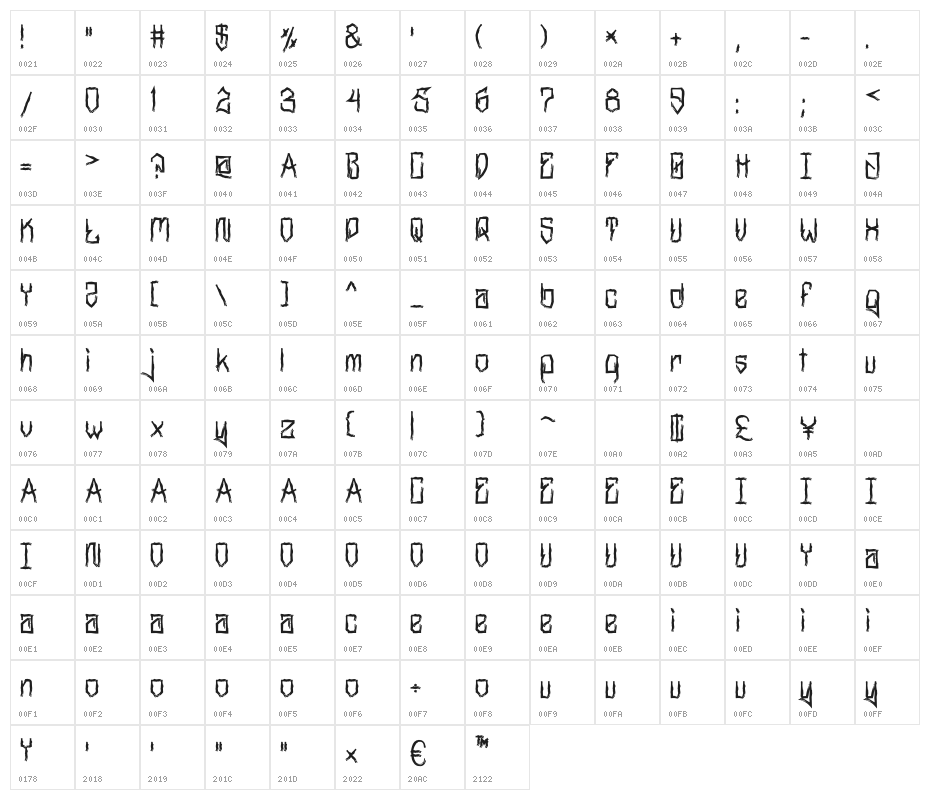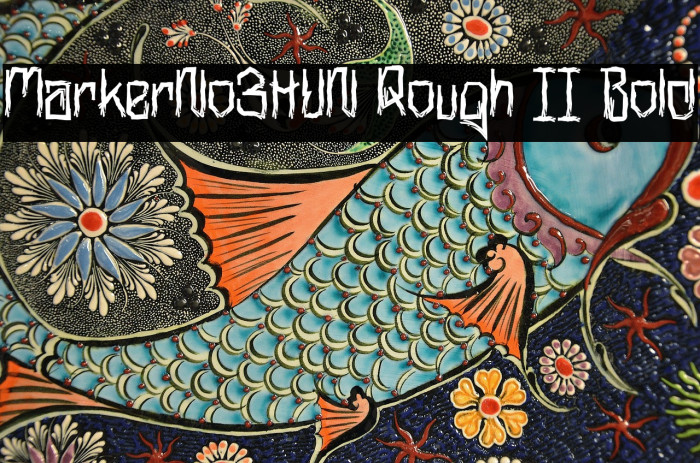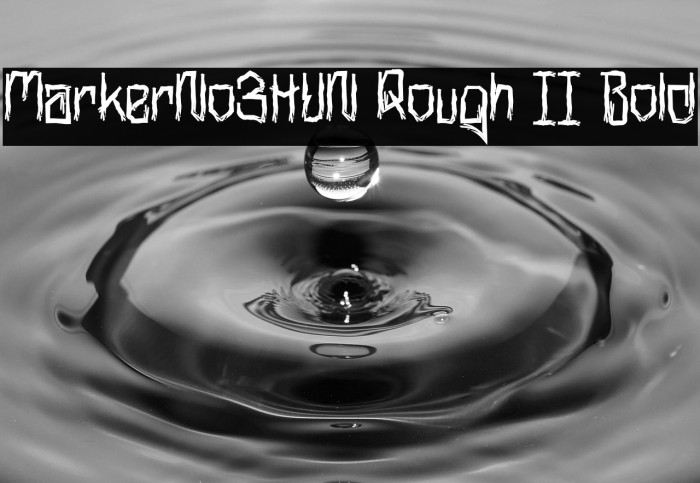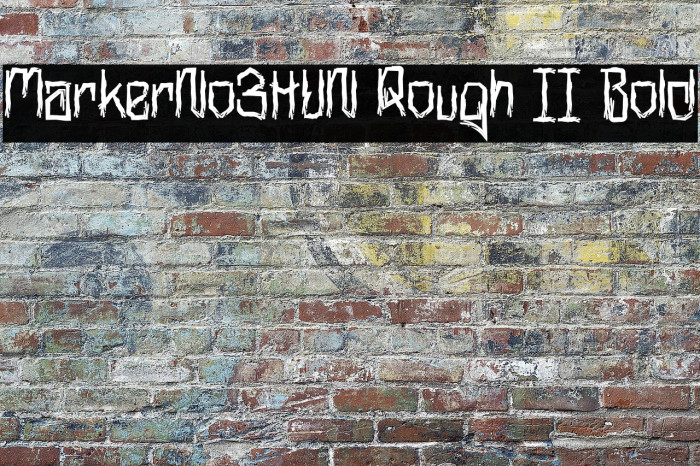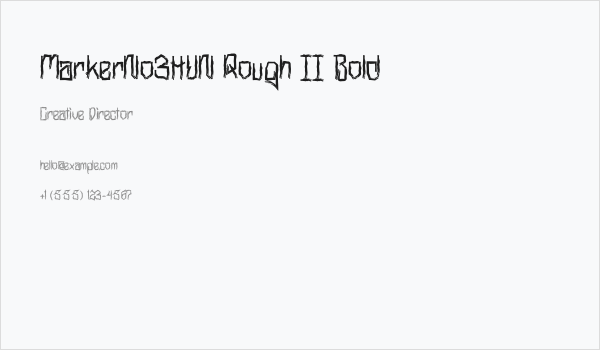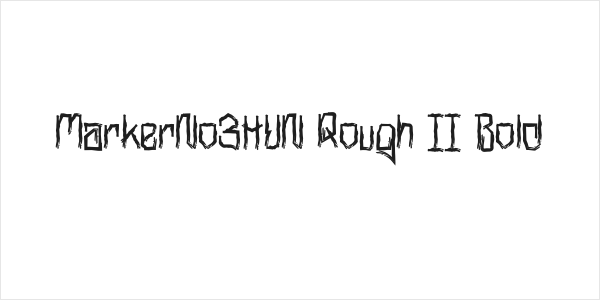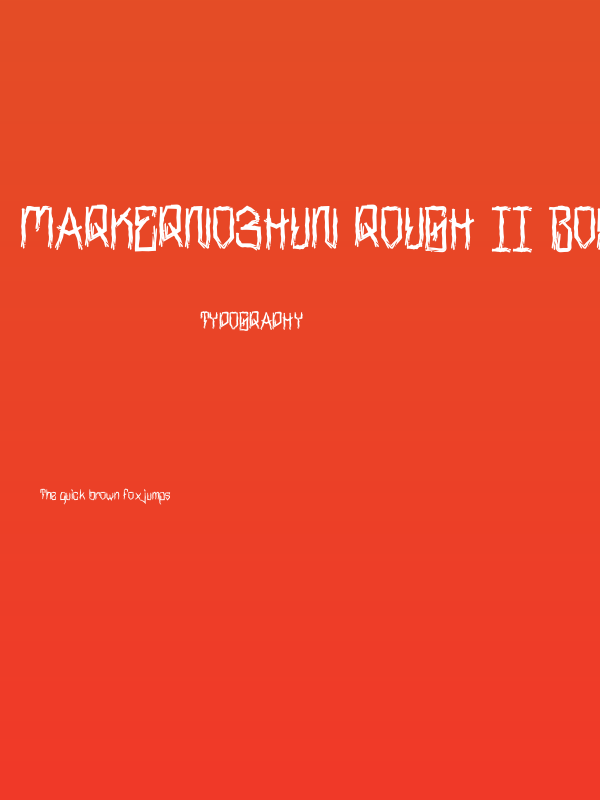
MarkerNo3HUN Rough II Bold Font
MarkerNo3HUN Rough II Bold Description
This font features a rugged, distressed style that mimics the appearance of rough brush strokes or jagged edges. The characters are bold and expressive, with an uneven texture that gives a sense of movement and energy. The uppercase and lowercase letters maintain a consistent roughness, creating a cohesive look across the alphabet. Numbers and special characters follow the same design, ensuring uniformity. The font's unique style makes it stand out, ideal for projects that require a bold, eye-catching aesthetic.